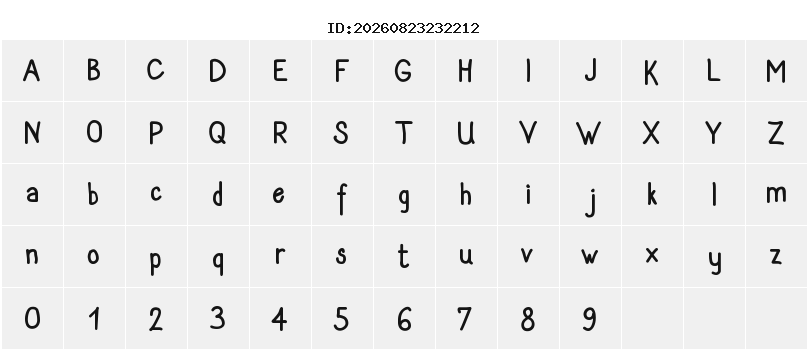
Sanlabello Preview
• Font Name: Sanlabello
• Font Style: Solid
• Full Font Name: SanlabelloSolid
• PostScript Name: Sanlabello-Solid
About Sanlabello.ttf
Sanlabello.ttf is a modern, elegant sans-serif font designed for ultimate readability and visual harmony. Perfect for branding, headlines, web design, and print materials.